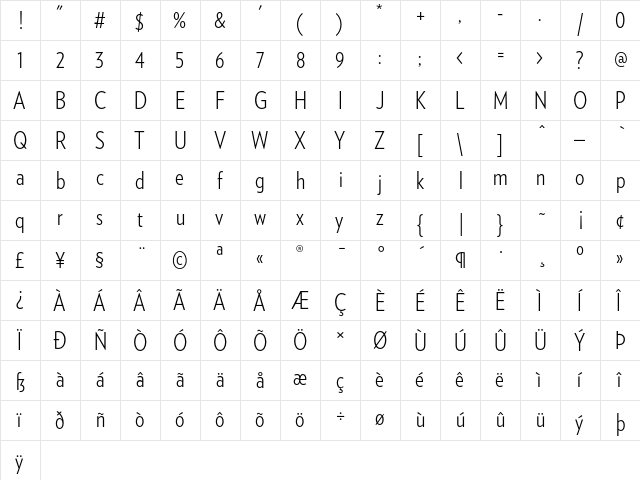
Verlag Condensed Light Font Preview
| Foundry | Hoefler & Frere-Jones |
| Designer | Hoefler & Frere-Jones |
Design Context for Verlag Condensed Typeface
Verlag Condensed takes a measured approach to typography — its balanced proportions and neutral character make it a reliable workhorse for both digital and print work. The delicate stroke weight brings airiness and refinement to layouts. The condensed width makes it efficient for tight spaces without sacrificing legibility.
Pro Tip: Use Verlag Condensed in both headline and body roles to test its range before committing to a single application.